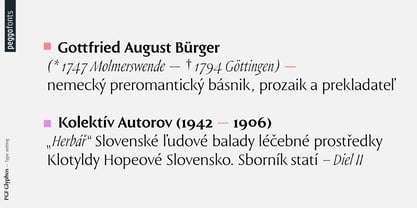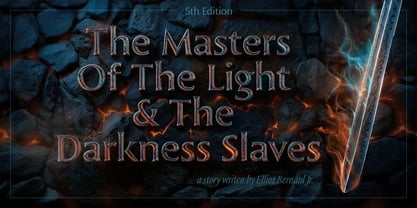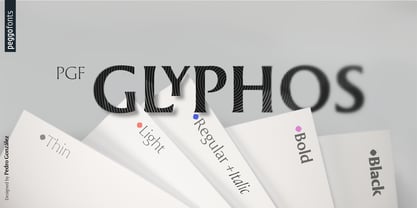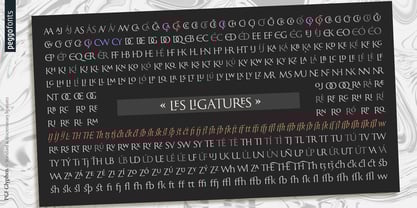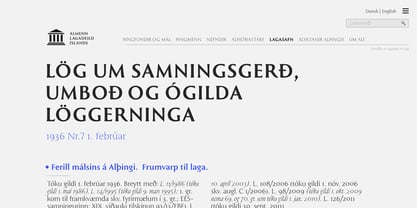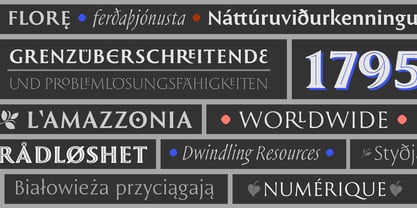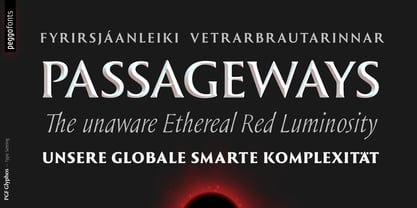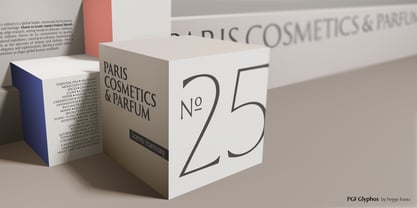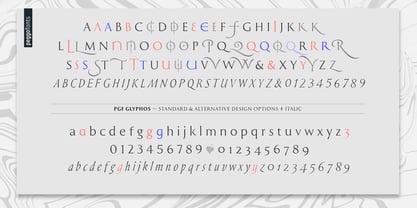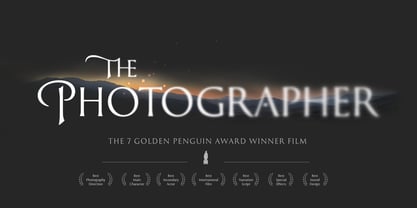
PGF Glyphos
The PGF Glyphos Font Family was designed by Pedro Gonzalez Jorquera and published by Peggo Fonts. PGF Glyphos contains 6 styles and family package options.
PGF Glyphos Is a flared serif Roman typeface from the branch of Glyphic families, that balances a clean, bold aesthetic, assertive character with architectural precision. Evolved from the 2011 release project "Legan", it now spans five distinct typographic weights plus an Italic variant, each offering sharp contrast for enhanced versatility in applications like book covers, film and video game titles, user interface design, branding, pro- duct design, and more.
Staying true to classical Trajan-inspired proportions for its capitals, the typeface draws on historical geometric principles such as root five ratio, divine proportion (golden ratio), and square modular systems. All derived from the inscriptions of Rome’s Trajan’s Column. The lowercase characters, initially designed under the similar Trajan rules, have been refined in this update to prioritize readability while maintaining stylistic cohesion.
Design versatility drives this iteration, featuring extensive OpenType functionality including standard and discretionary ligatures (lineal, overlapped, and nested variants), alternate glyphs, and contextual alternates, multiple ways to display numbers (traditional lining, oldstyle, fractions, superiors and inferiors). The result is a compact yet expressive font family that balances playfulness, modernity, and timeless elegance.